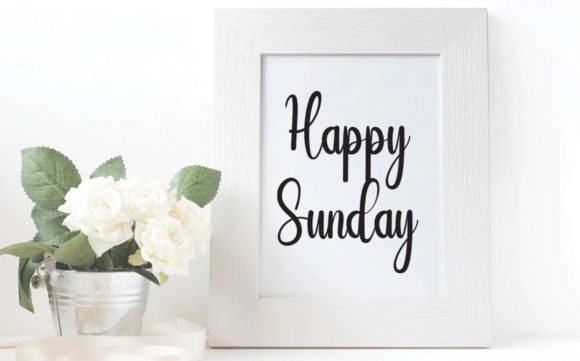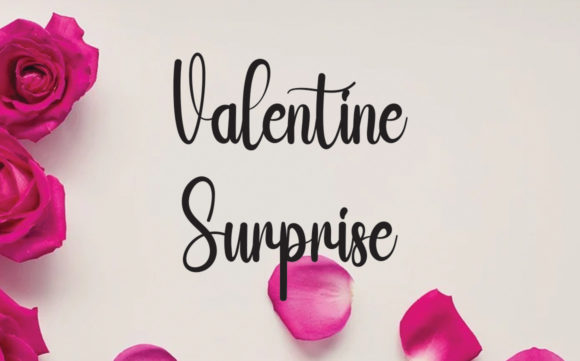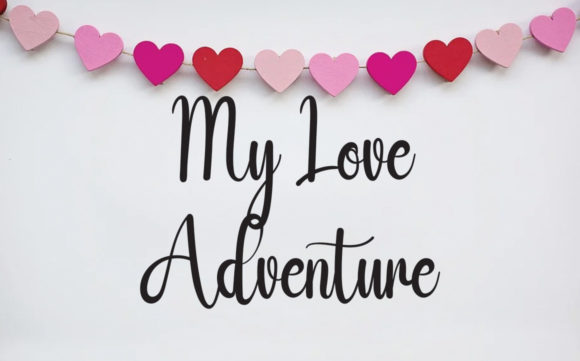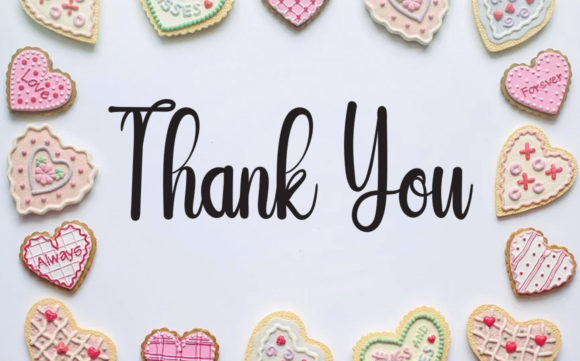
Introducing Couple Font: The Sweet and Romantic Handwritten Font for Your Design Needs
Are you looking for a font that exudes love, care, and romance? Look no further than Couple Font, a beautiful handwritten font that is perfect for creating stunning wall displays, wedding invitations, social media post logos, and any project that requires impressive typography. In this article, we’ll dive into the features and benefits of Couple Font, and explore how you can use it to elevate your designs.
What is Couple Font?
Couple Font is a sweet and romantic handwritten font that features a delicate flow, making it perfect for designs that require a touch of elegance and sophistication. The font is carefully crafted to provide a unique and personalized feel, making it ideal for projects that require a special touch. Whether you’re a designer, crafter, or DIY enthusiast, Couple Font is a versatile font that can be used for a wide range of applications.
Key Features of Couple Font
- Handwritten style: Couple Font features a beautiful handwritten style that is both elegant and sophisticated.
- Delicate flow: The font has a delicate flow that gives it a unique and personalized feel.
- Romantic and sweet: Couple Font is perfect for designs that require a touch of romance and sweetness.
- Versatile: The font can be used for a wide range of applications, including wall displays, wedding invitations, social media post logos, and more.
How to Use Couple Font
Couple Font is easy to use and can be incorporated into your designs in a variety of ways. Here are a few ideas to get you started:
- Wedding invitations: Use Couple Font to create beautiful and romantic wedding invitations that will set the tone for the big day.
- Wall displays: Create stunning wall displays using Couple Font, perfect for weddings, anniversaries, and other special occasions.
- Social media post logos: Use Couple Font to create eye-catching social media post logos that will make your brand stand out.
- Crafting projects: Couple Font is perfect for a variety of crafting projects, including card making, scrapbooking, and more.
Benefits of Using Couple Font
There are many benefits to using Couple Font in your designs. Here are a few:
- Unique and personalized: Couple Font provides a unique and personalized feel that will make your designs stand out.
- Elegant and sophisticated: The font’s elegant and sophisticated style makes it perfect for designs that require a touch of refinement.
- Easy to use: Couple Font is easy to use and can be incorporated into your designs in a variety of ways.
- Versatile: The font can be used for a wide range of applications, making it a great addition to your font library.
Tips for Getting the Most Out of Couple Font
Here are a few tips for getting the most out of Couple Font:
- Experiment with different colors: Couple Font looks great in a variety of colors, so don’t be afraid to experiment and find the perfect color for your design.
- Pair with other fonts: Couple Font pairs well with other fonts, so try pairing it with a bold font for a striking contrast.
- Use it for headlines and titles: Couple Font is perfect for headlines and titles, so use it to add a touch of elegance and sophistication to your designs.
Couple Font is a beautiful and romantic handwritten font that is perfect for designers, crafters, and DIY enthusiasts. With its delicate flow and elegant style, it’s ideal for designs that require a touch of sophistication and refinement. Whether you’re creating wedding invitations, wall displays, or social media post logos, Couple Font is a versatile font that can help you achieve your design goals. So why wait? Download Couple Font today and start creating stunning designs that will leave a lasting impression.